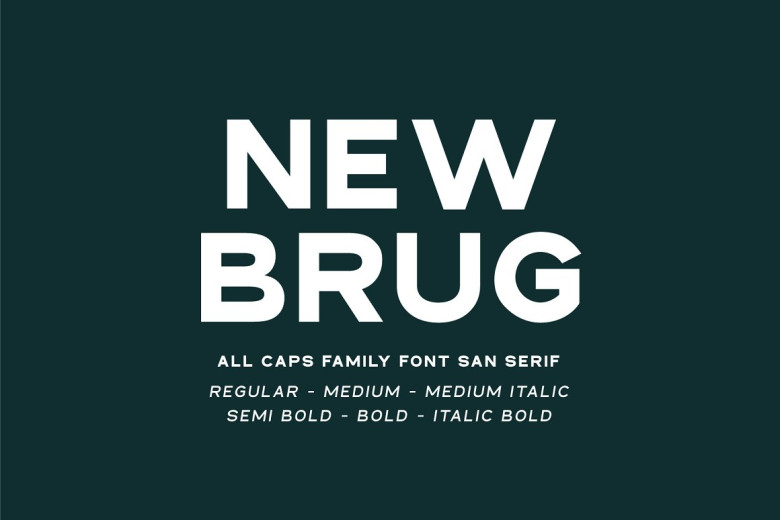
New Brug Font
New Brug features an eye-catching sans-serif typeface that stands out. Perfect for many projects, New Brug will stand out against its competition! Integrate this font into your ideas and witness its striking presence!
New Brug Sans Serif Font Family